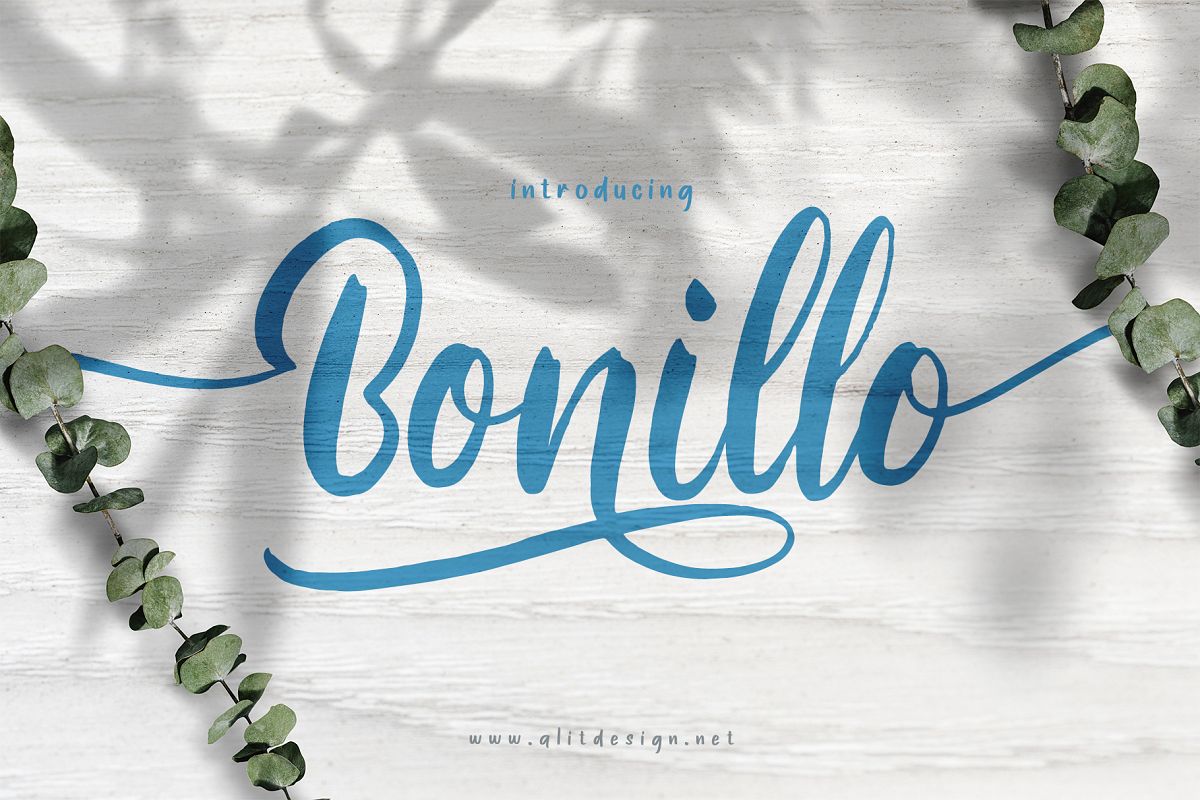
Bonillo font
Bonillo font is a brush script type font created with a natural brush. This font is very beautiful when combined with era now design concepts that use more natural colors like brown and dry green soil.
Bonillo fonts also have many alternative characters that you can use to decorate or beautify your writing. Bonillo fonts are very suitable to be a collection in the stock font that you have.